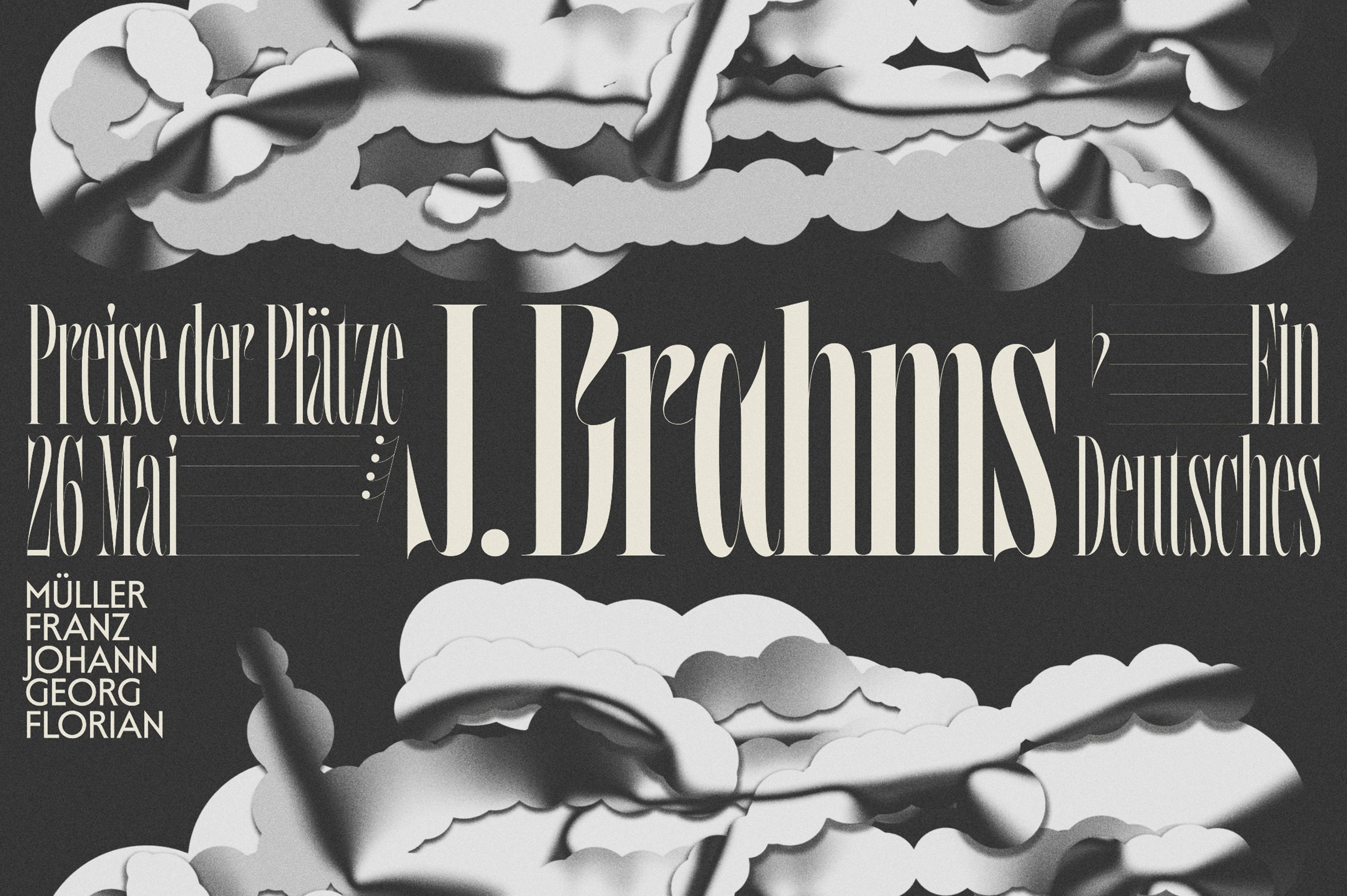
Designed to comfortably sit side-by-side with musical notation, Rhapsodyโs eccentric, nostalgic structure finds its footing from an unusual place.
Rhapsody
Designed to comfortably sit side-by-side with musical notation, Rhapsodyโs eccentric, nostalgic structure finds its footing from an unusual place. Born out of research from Reading University which discovered that the design of contemporary musical notation was inspired by the typographical structure and rationale of the classic typeface, Didot, Rhapsody emerged.
Too good not to challenge, Rhapsody embodies a Didot-like exploration of modern letterforms in the context of its melodic legacies, packed with musical notation characters and lyrical discretionary ligatures. The result is a graceful, fluid font defined by a unique musical mashup of orchestra-inspired profiles and minimalist decadence. Quite the show-stopper.